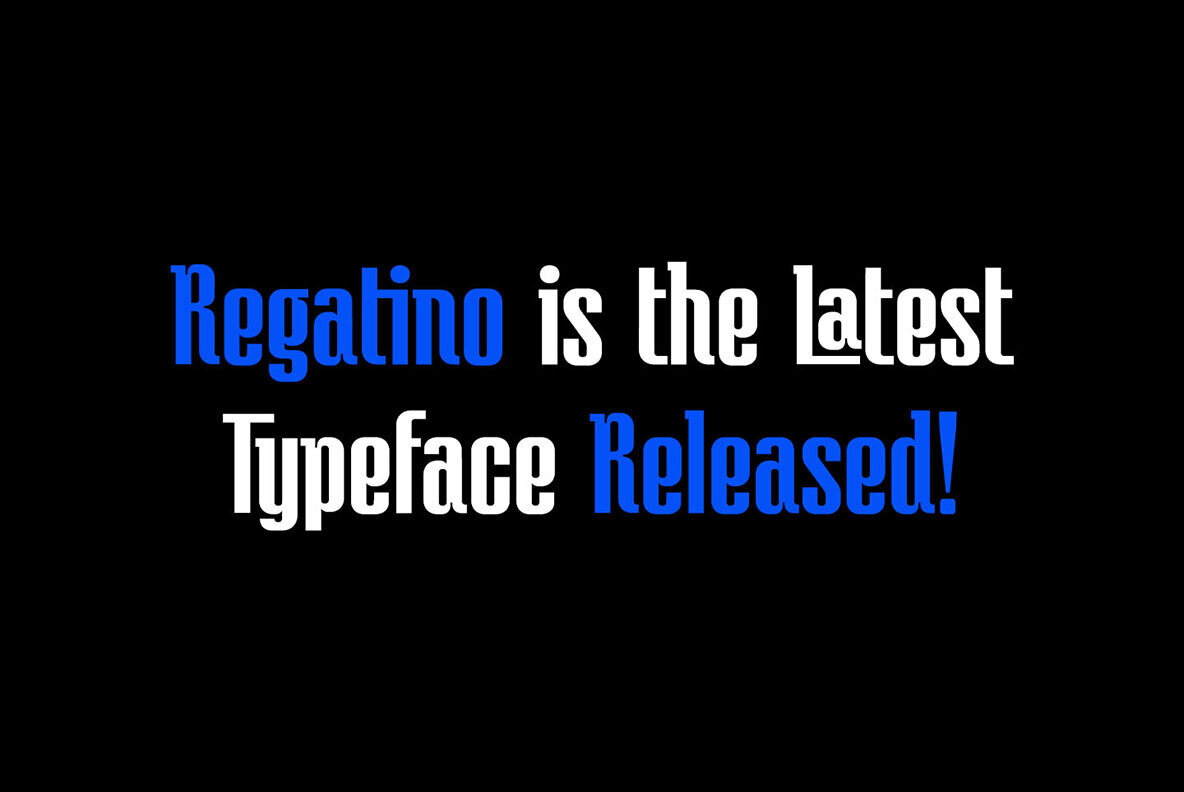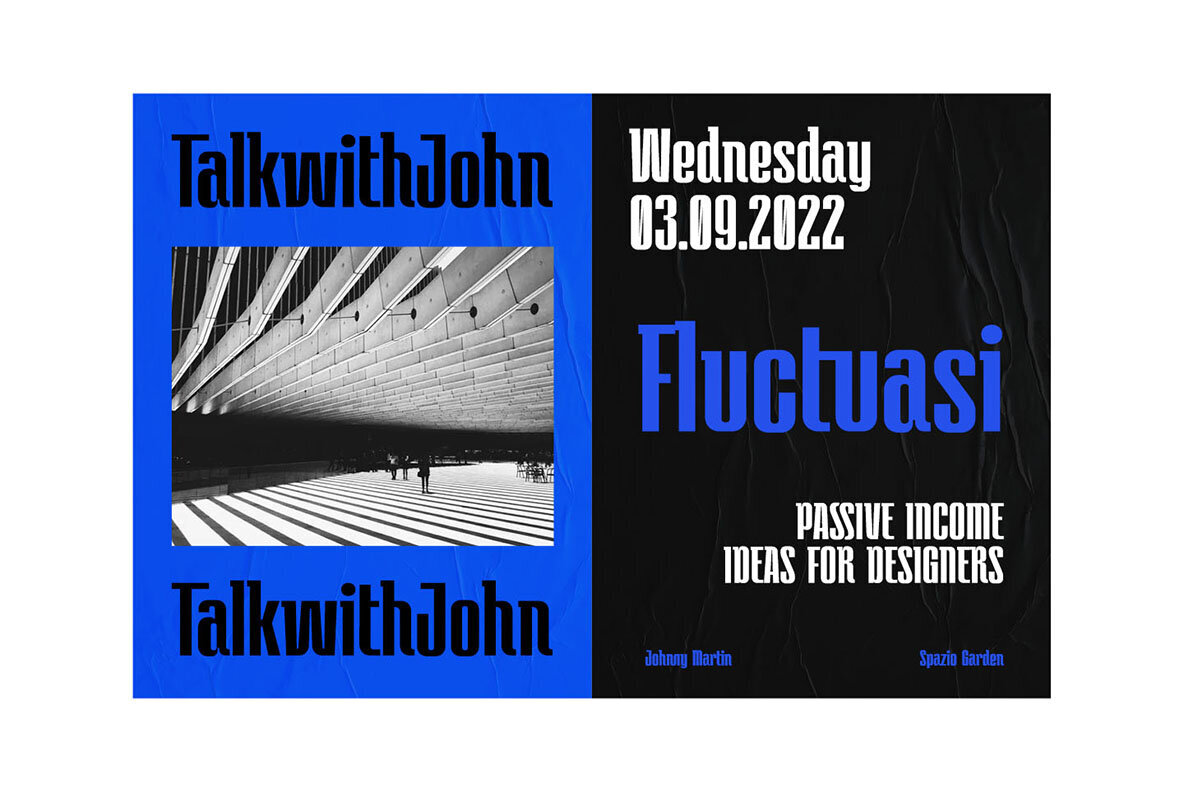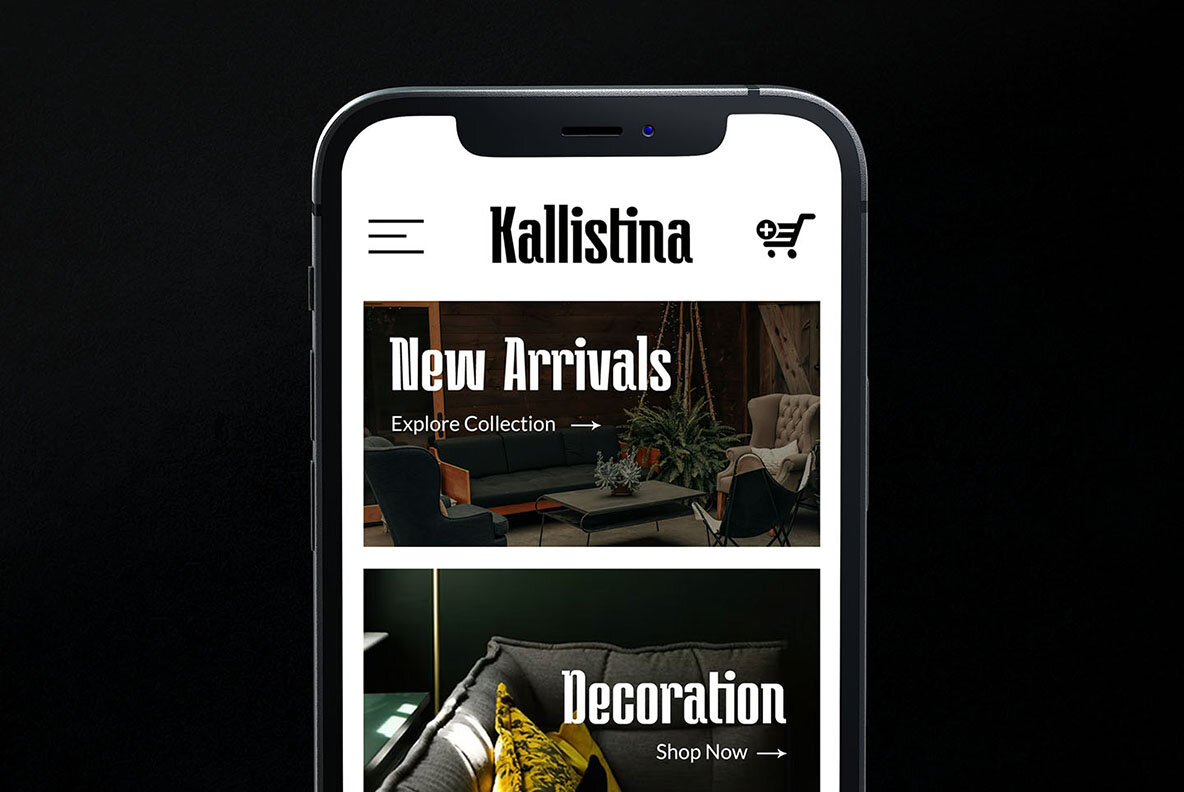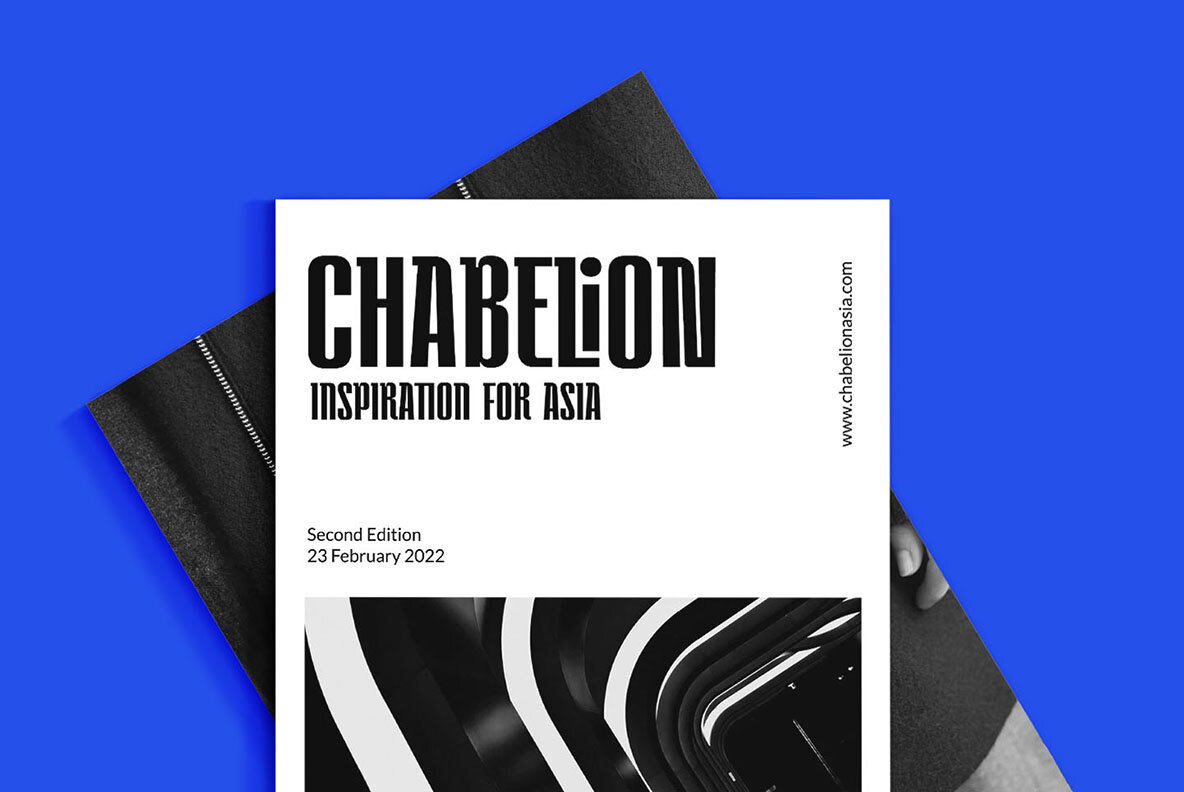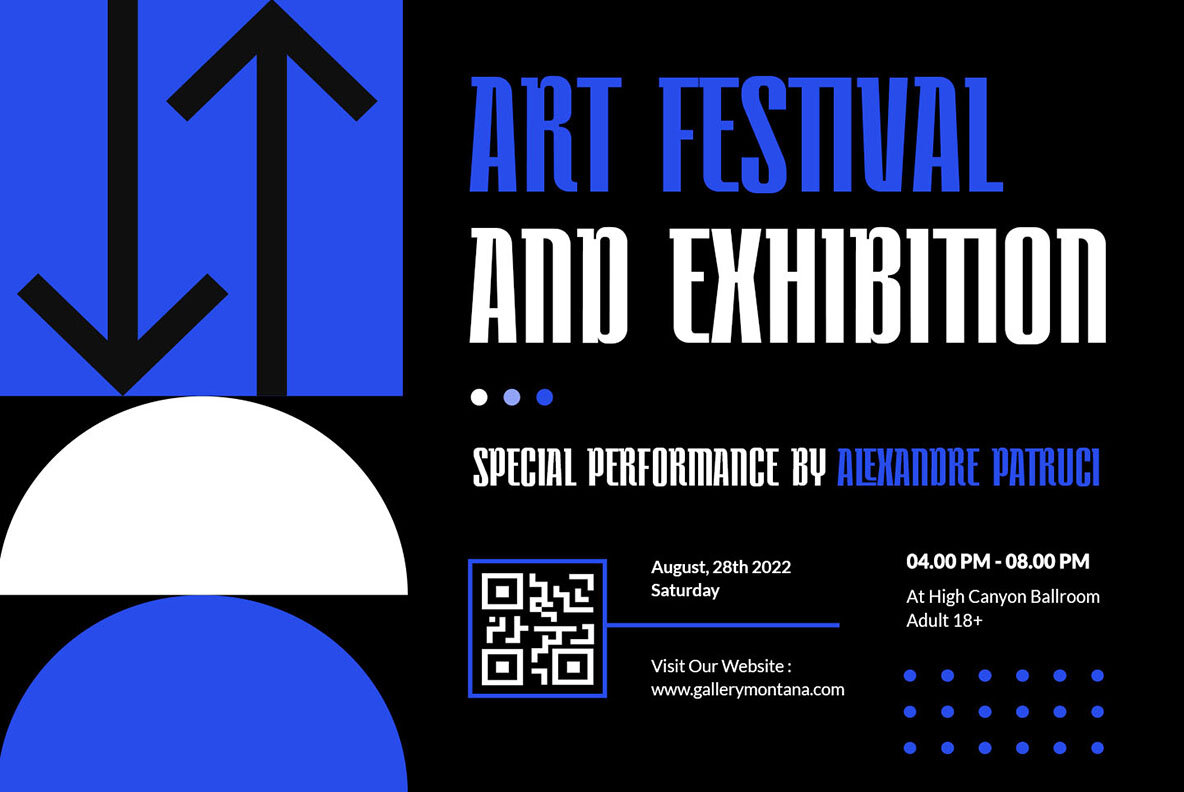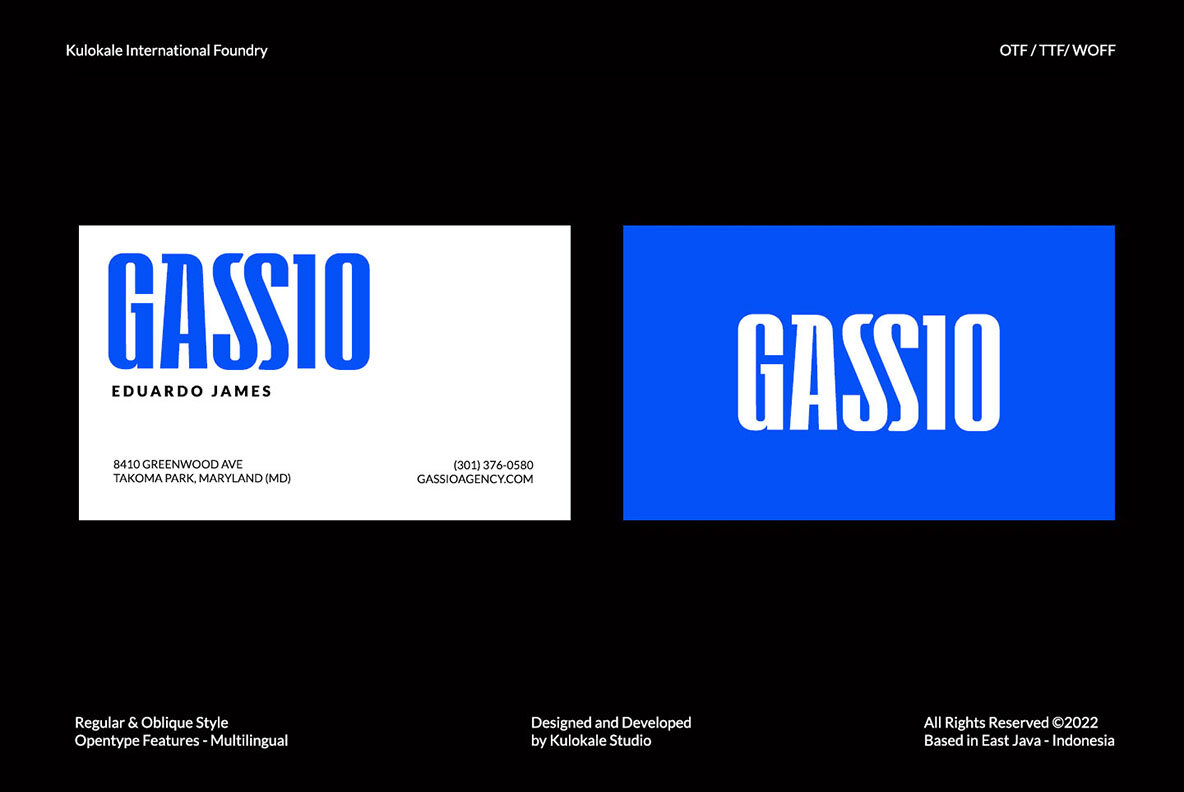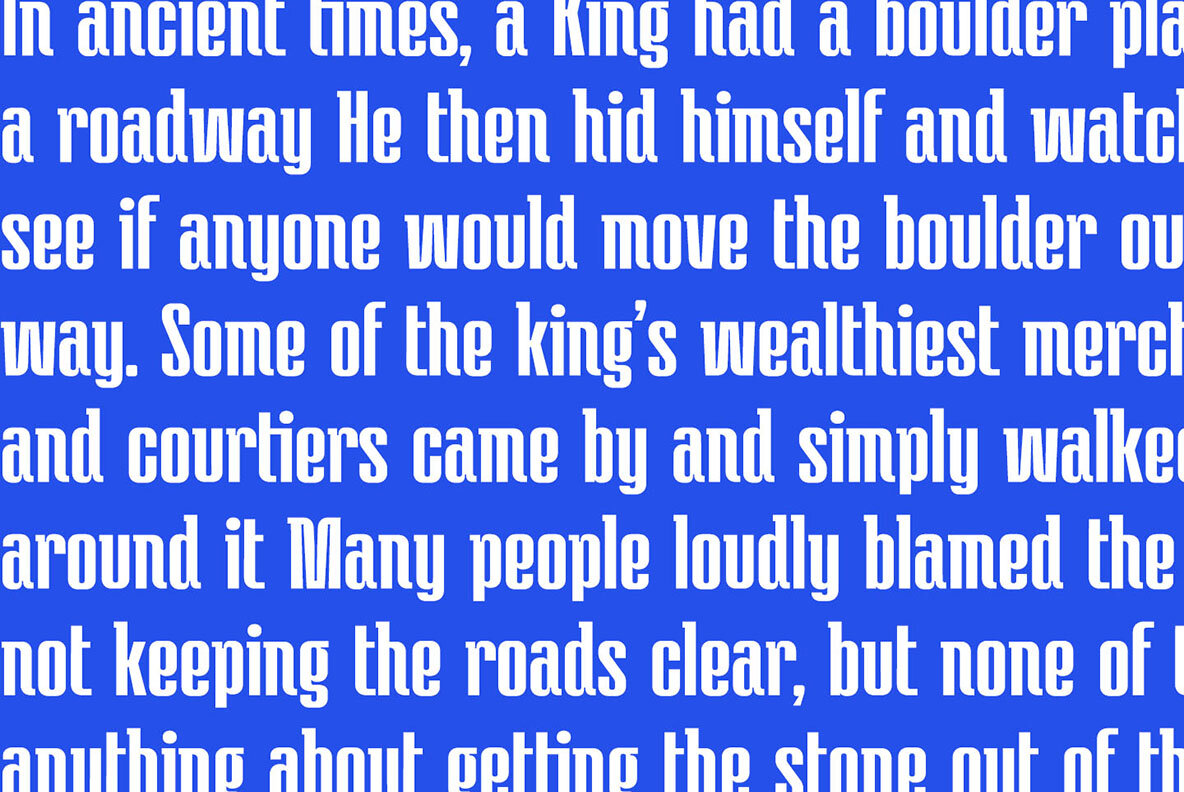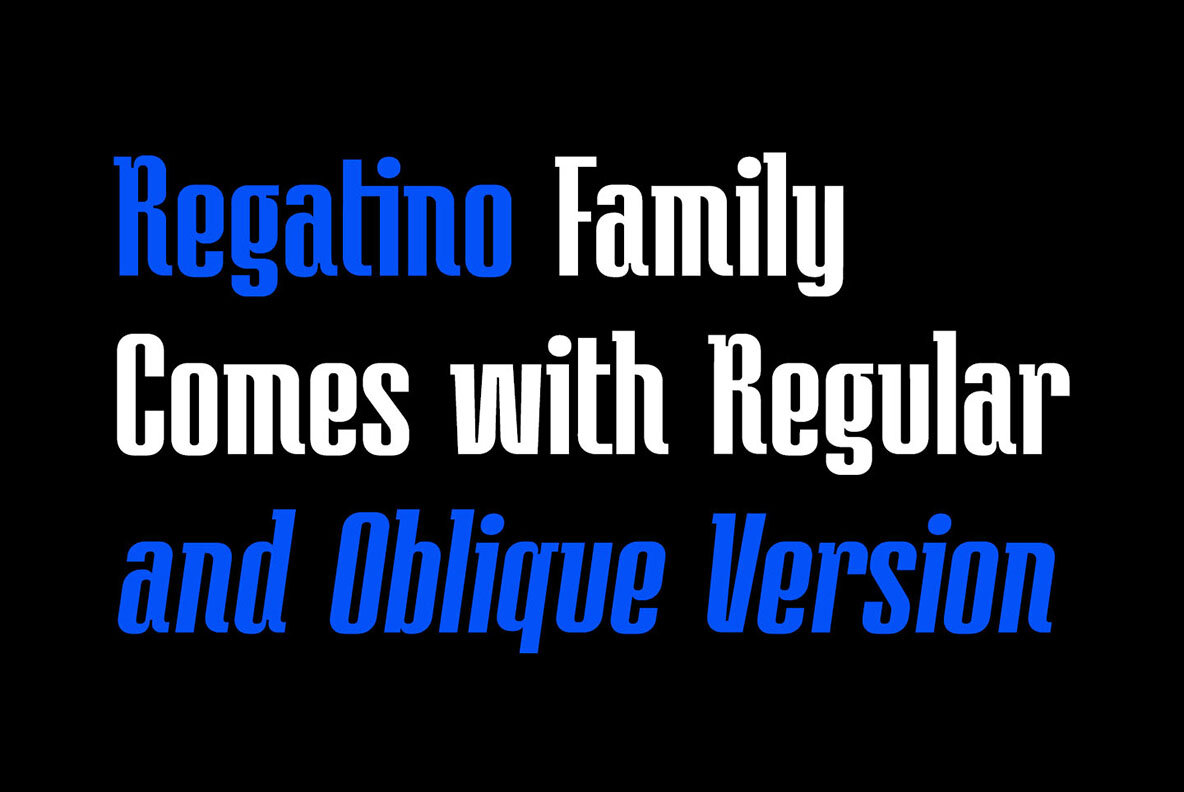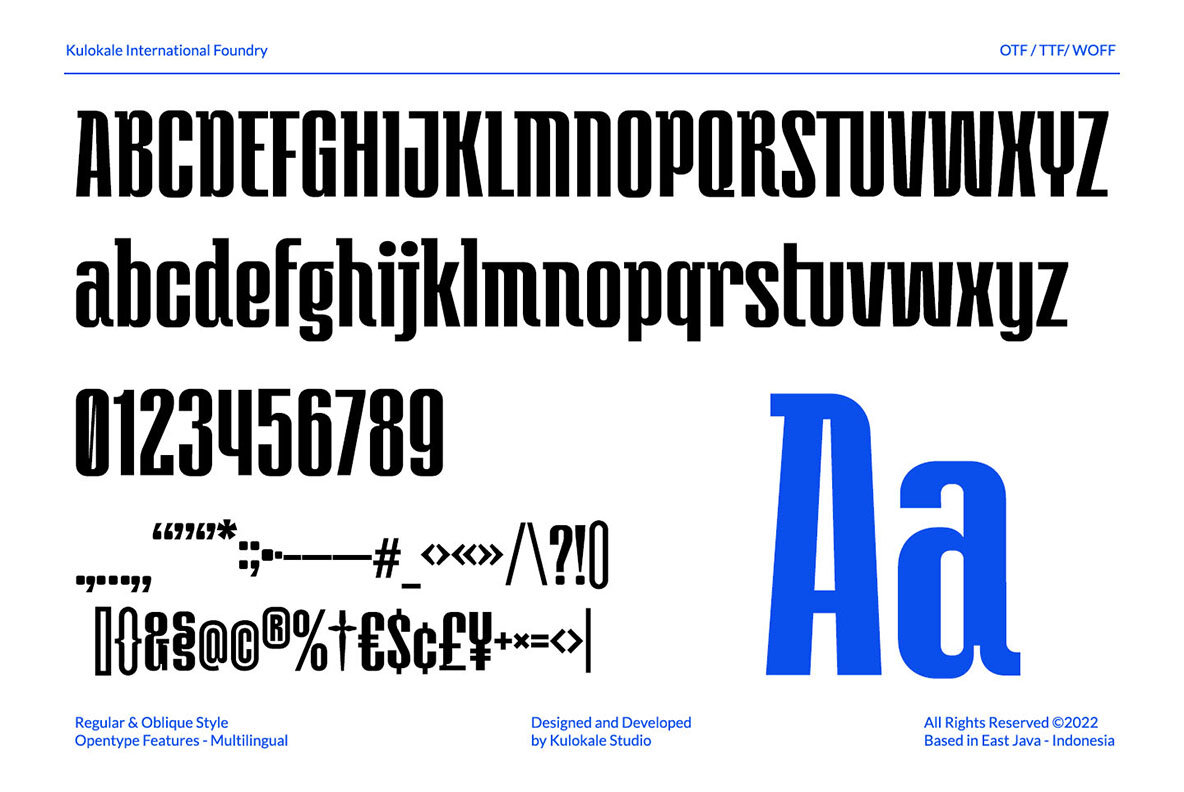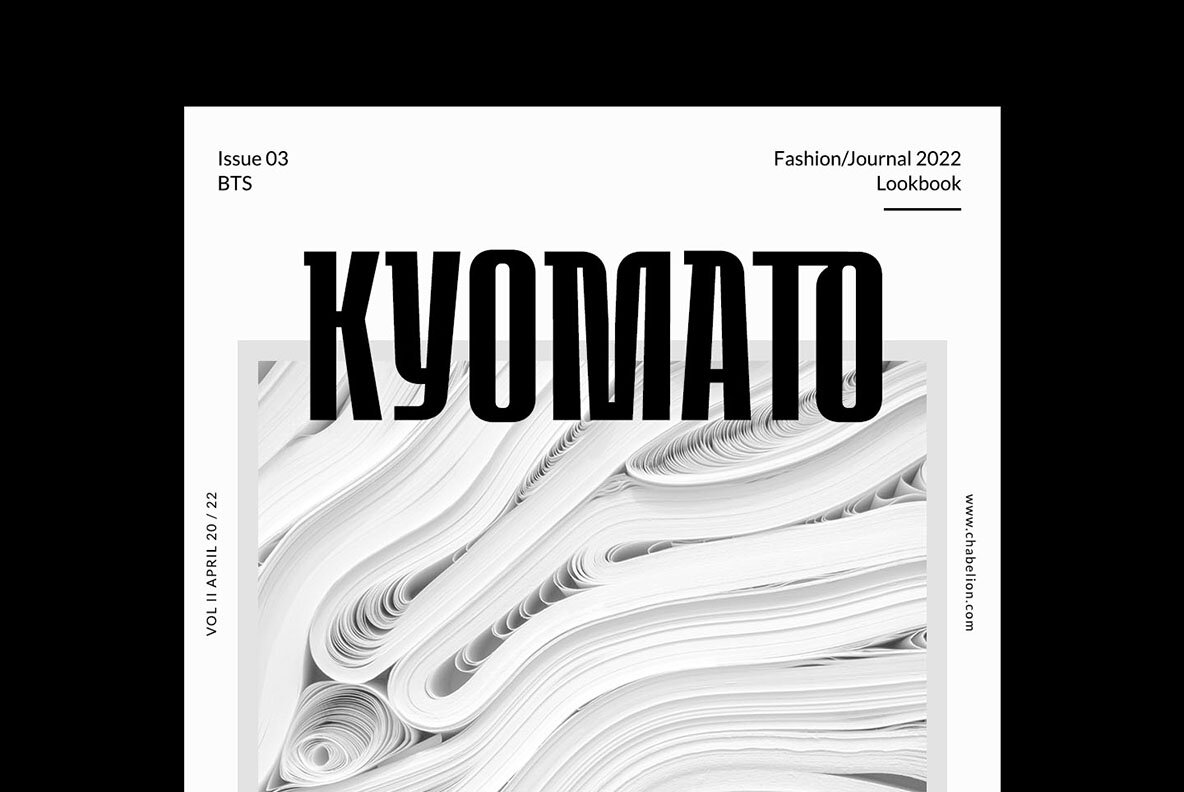
Regatino Font
Regatino Regular
Regatino Oblique
Regatino is a geometric display font, and with a style that is very different from the others.
Regatino is well-suited for posters, social media, headlines, magazine titles, clothing, large print formats - and wherever you want to be seen. Inspired by the style of design that is currently popular, and this is the answer to all the needs of every idea that you will pour in this modern era.